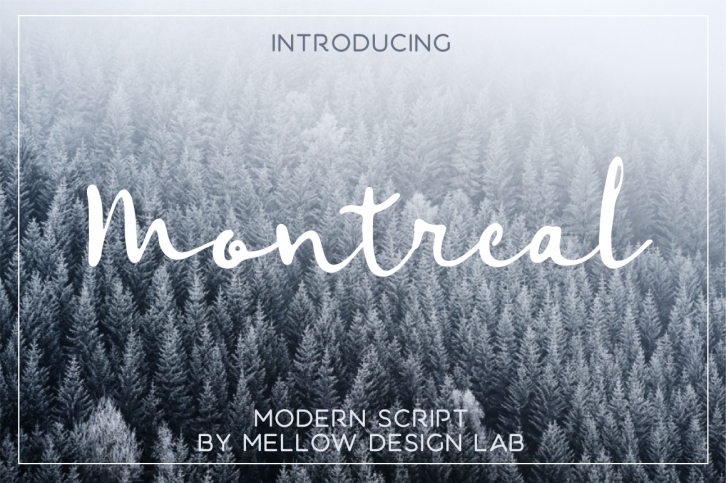
Montreal Script is a beautiful font that was designed by Mellow Design Lab. It's a great choice for designers and creatives who need such a font. It was released on September 7, 2016 and the file size is 10.67 MB. Montreal Script may give a more youthful, expressive and casual look to your project. It is a very beautiful, refined, elegant, and high-quality font.